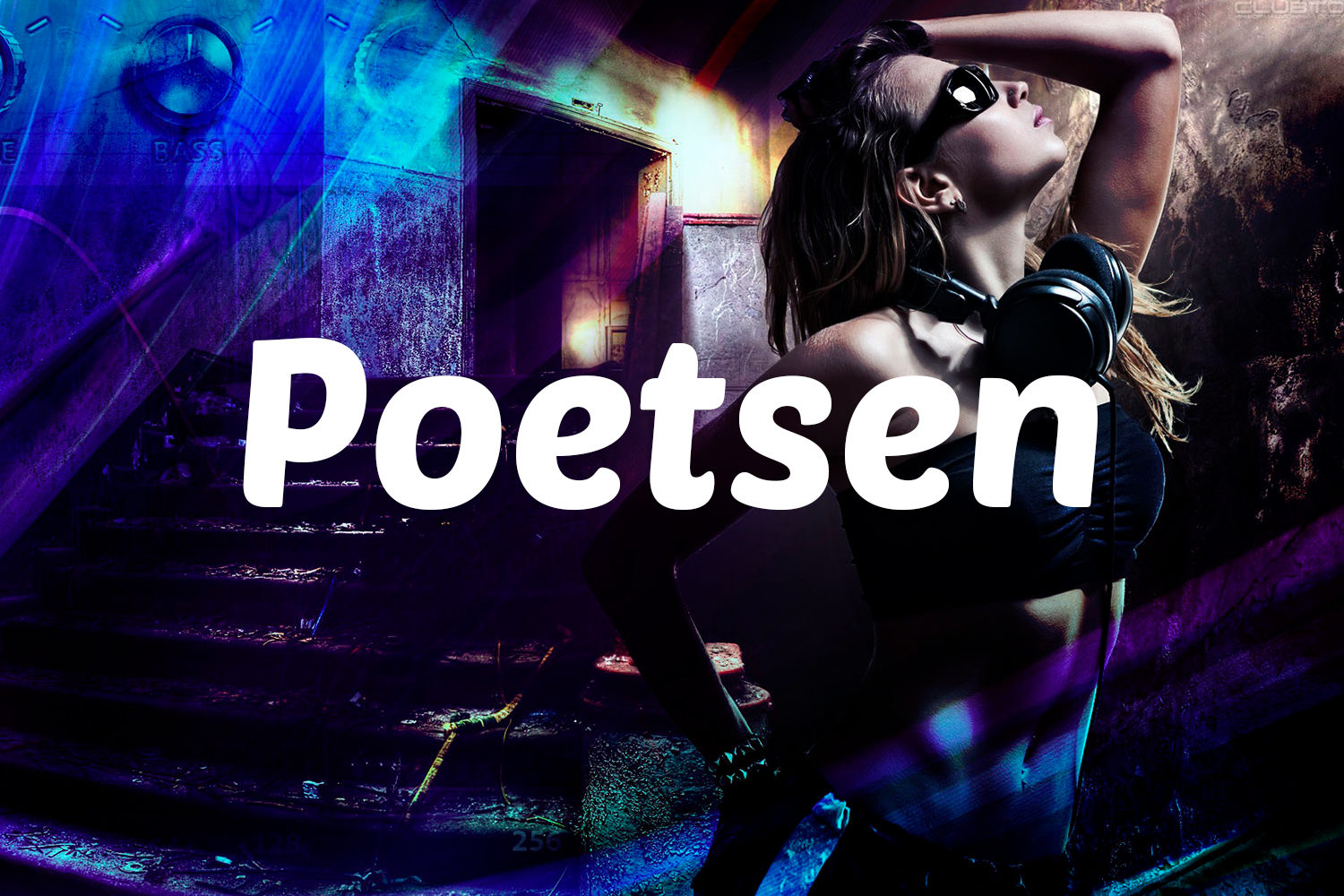
Poetsen is a display font, but it’s not just intended to be used on big ‘straight to the eye’ titles. It can be used on short paragraphs in relatively small bodies of text too.